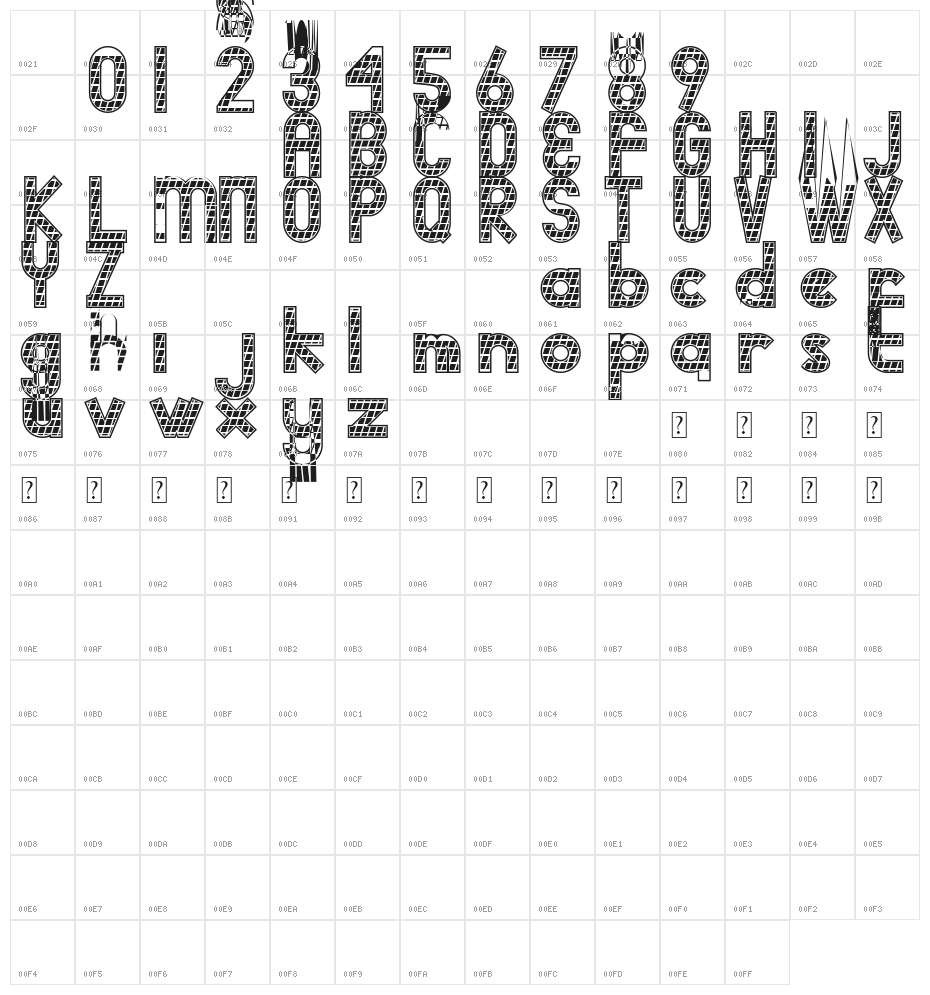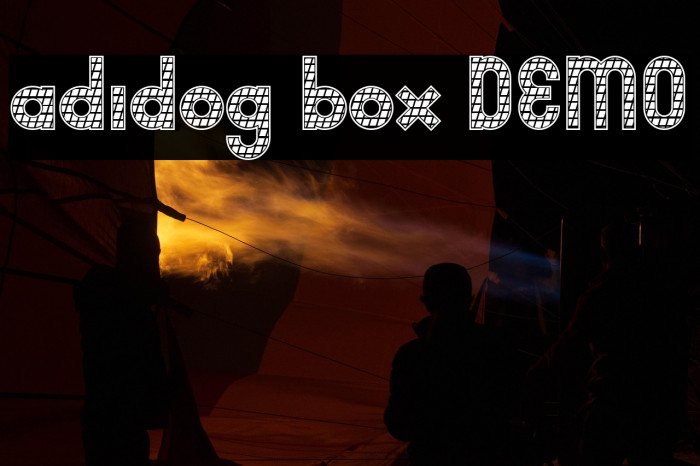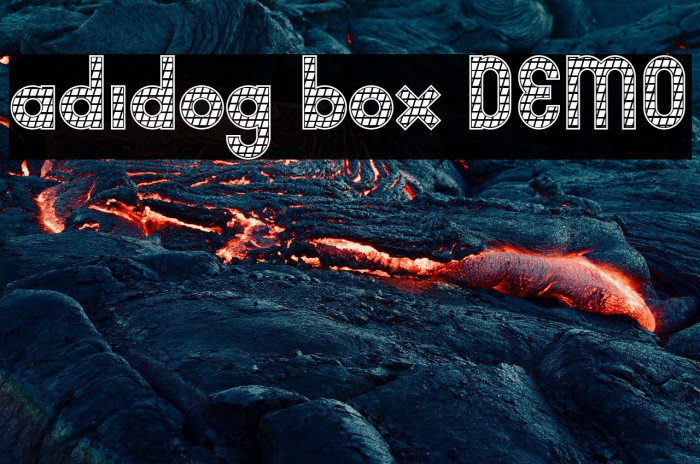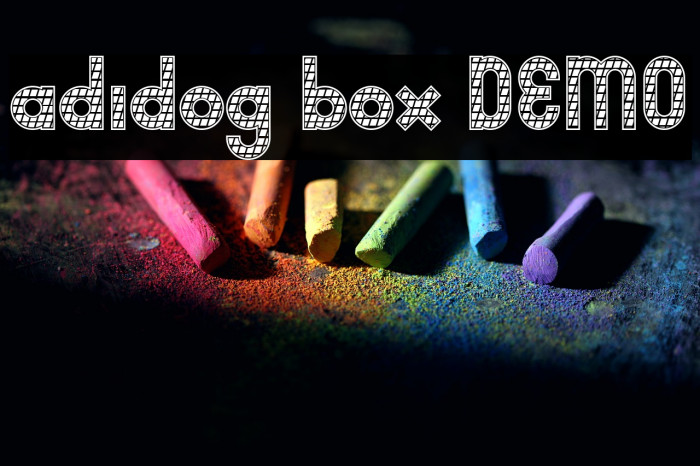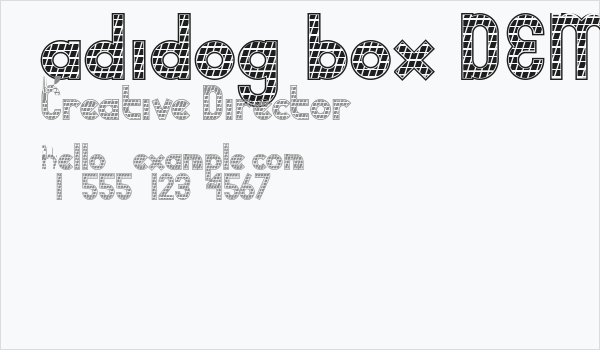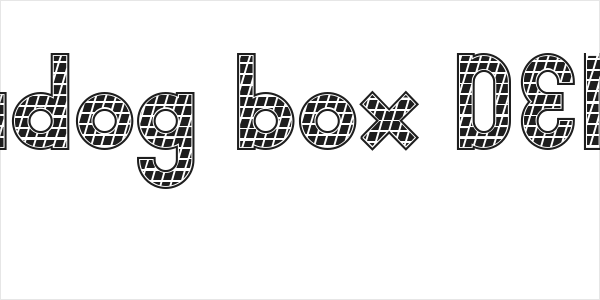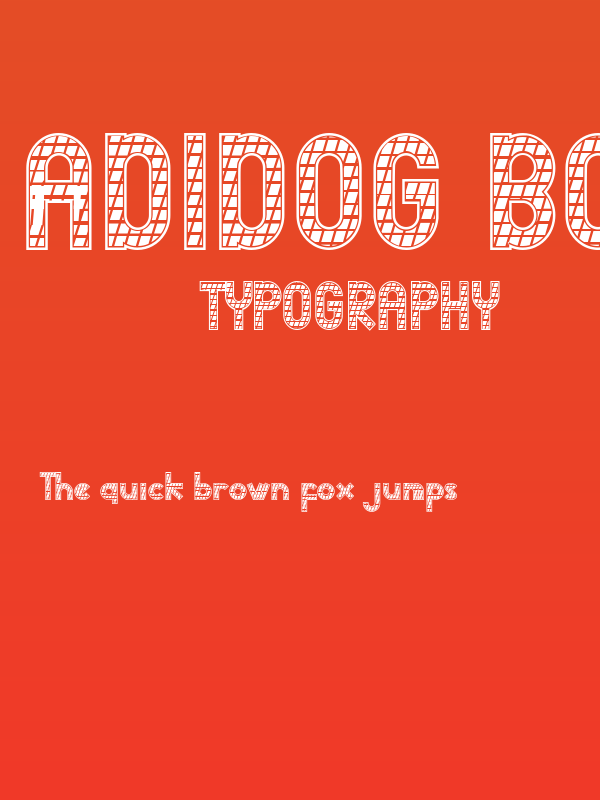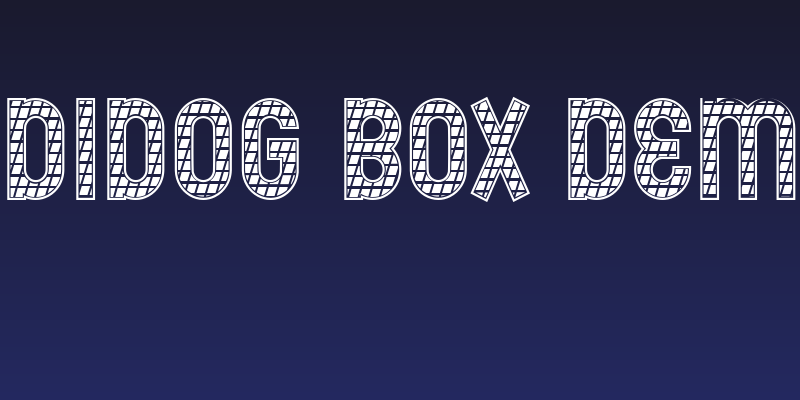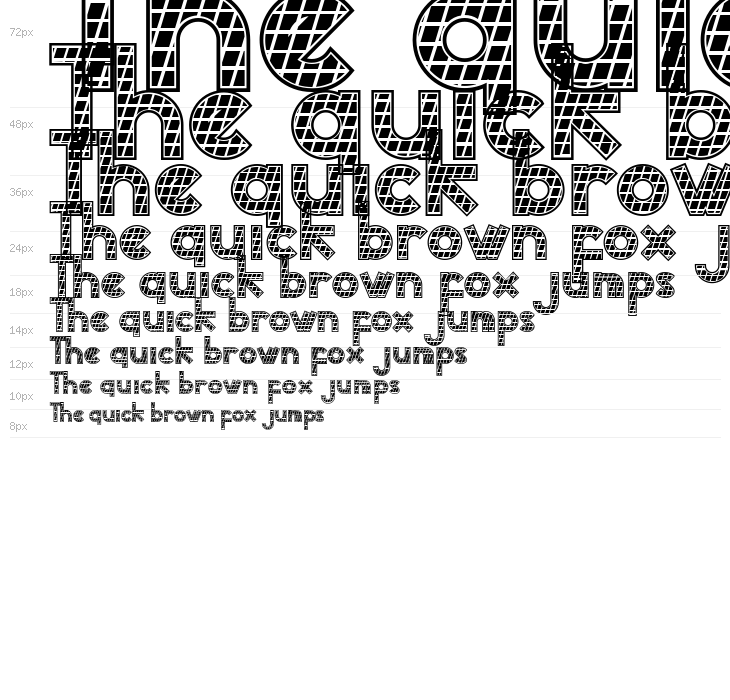
adidog box DEMO Font
adidog box DEMO Description
This font features a bold and playful design with a unique grid pattern filling each character. The uppercase and lowercase letters maintain a consistent geometric style, creating a cohesive look. The numbers and special characters follow the same design, ensuring uniformity across all elements. The font's structure is clean and modern, with a decorative flair that makes it stand out. Its distinct pattern and bold appearance make it ideal for eye-catching designs.
| Proposed Projects | Ideal for branding, poster designs, children's books, and playful merchandise. |